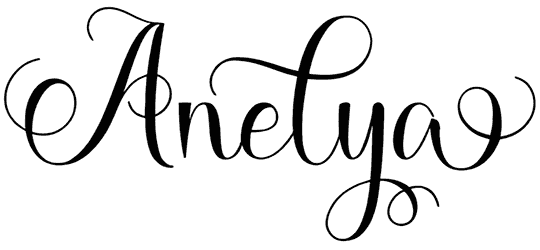
Anelya Font
Whenever you want to engage in a project with a personal feeling, Anelya can become one of the secrets of your success. This script font contains the beauty of natural writing and can add an utterly organic touch to your report.
Using this feminine font, you can save yourself from monotony and add variety to your designs. So don’t worry about taking the first step to designing your wedding cards, friendly invitations, or album covers. Anelya is a versatile offer.